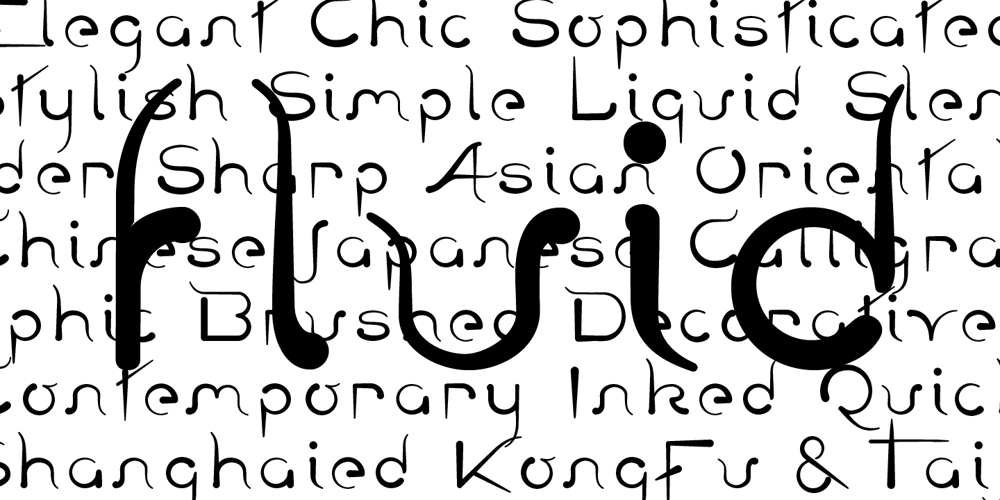
Fluid Font Family was designed by Florent Courtaigne and published by Cubo Fonts. Fluid contains 8 styles and family package options. Fluid is an elegant decorative typeface, a contemporary approach of Chinese calligraphy. As if a robot was holding a brush, practicing its digital “Qi”.